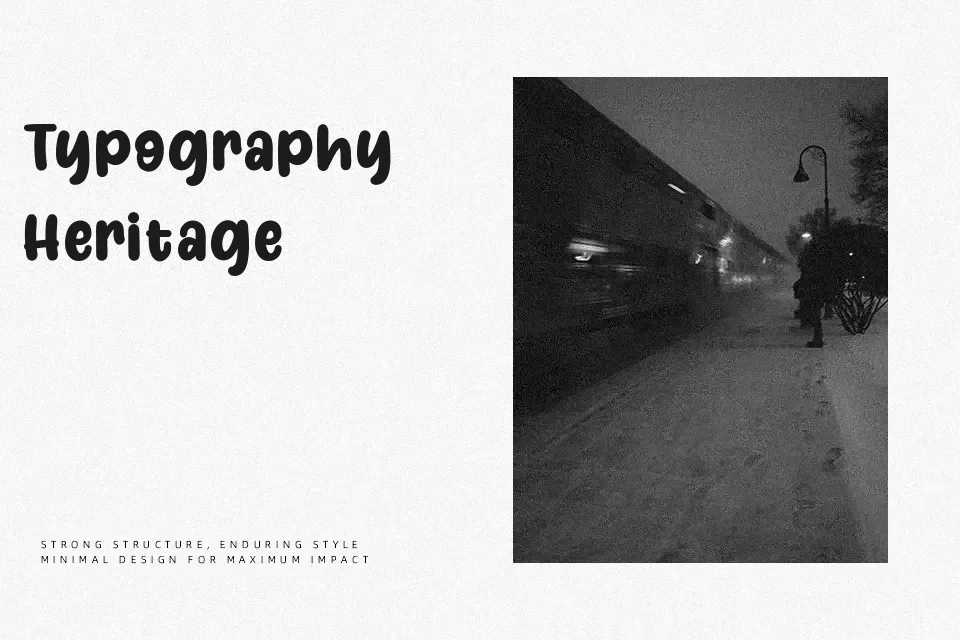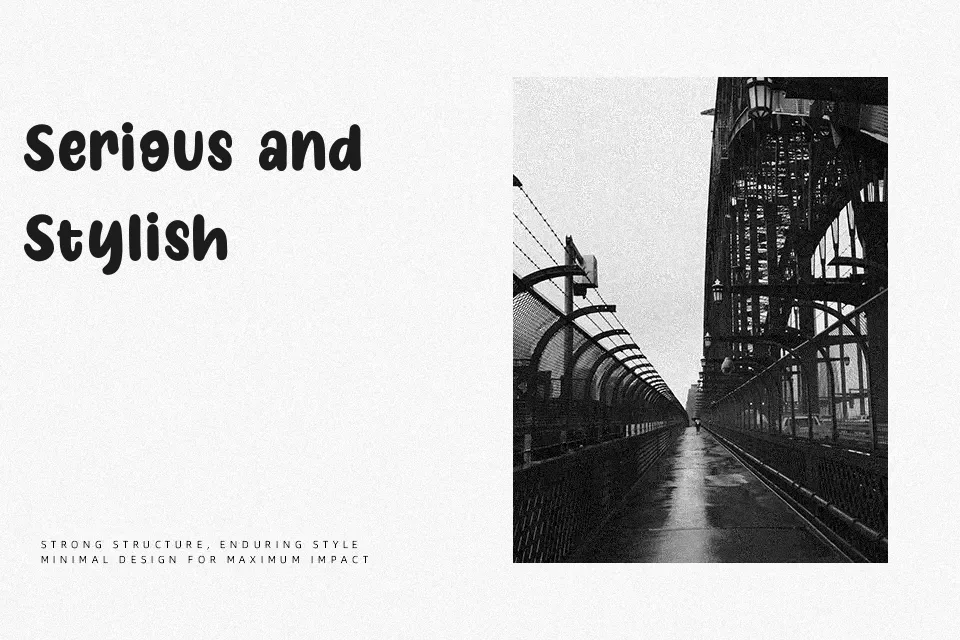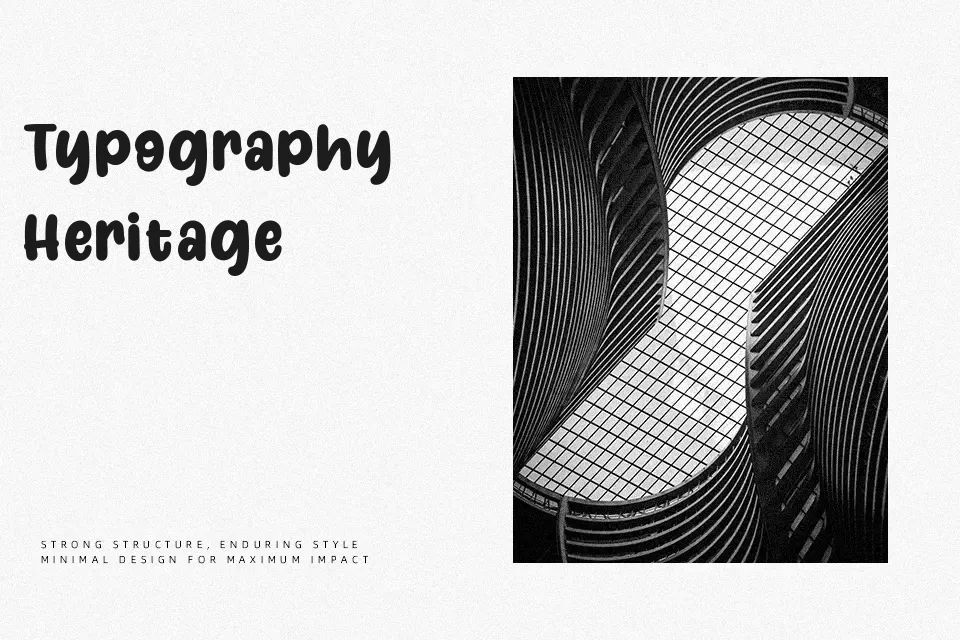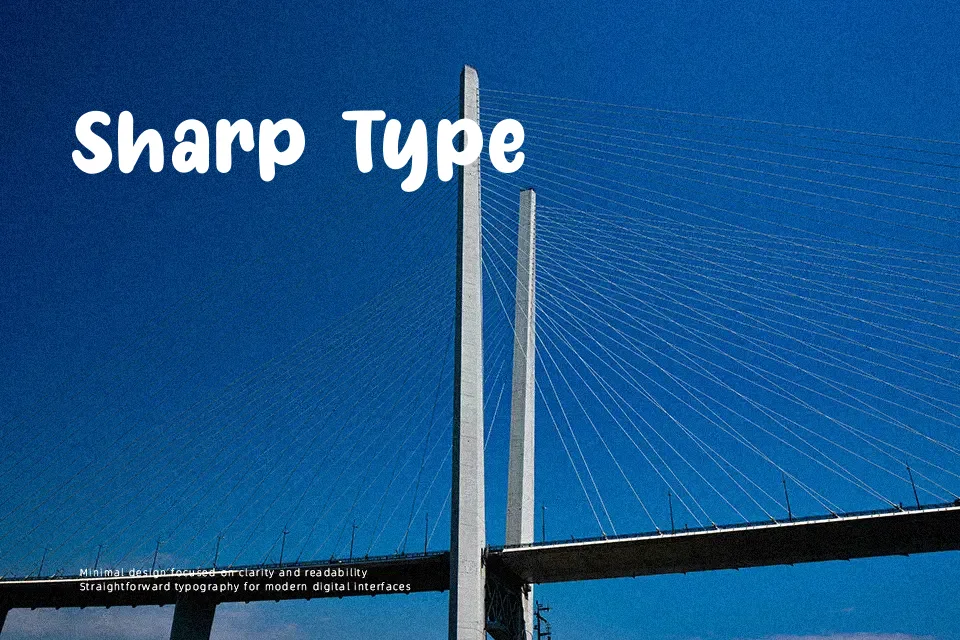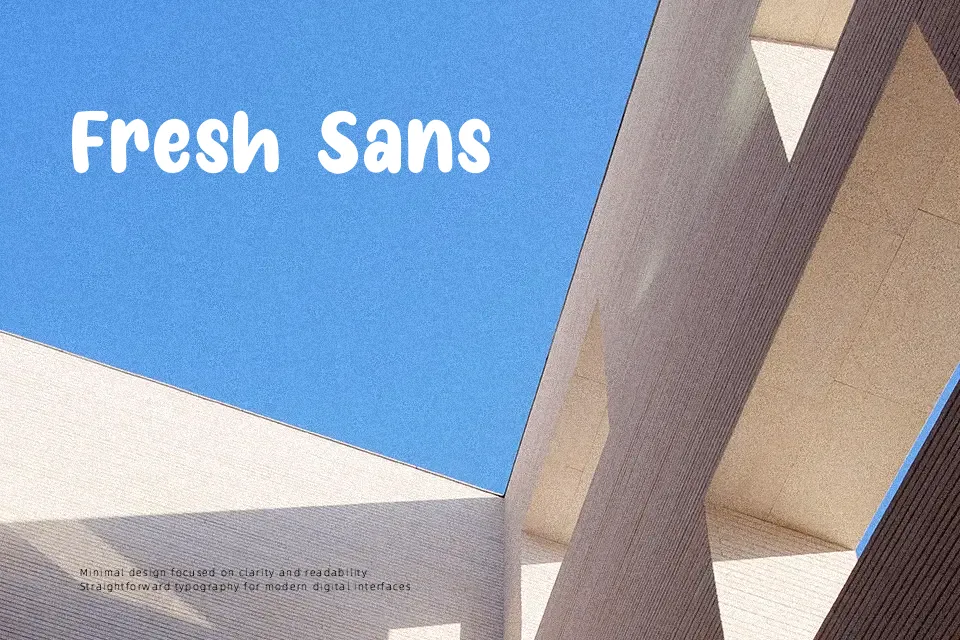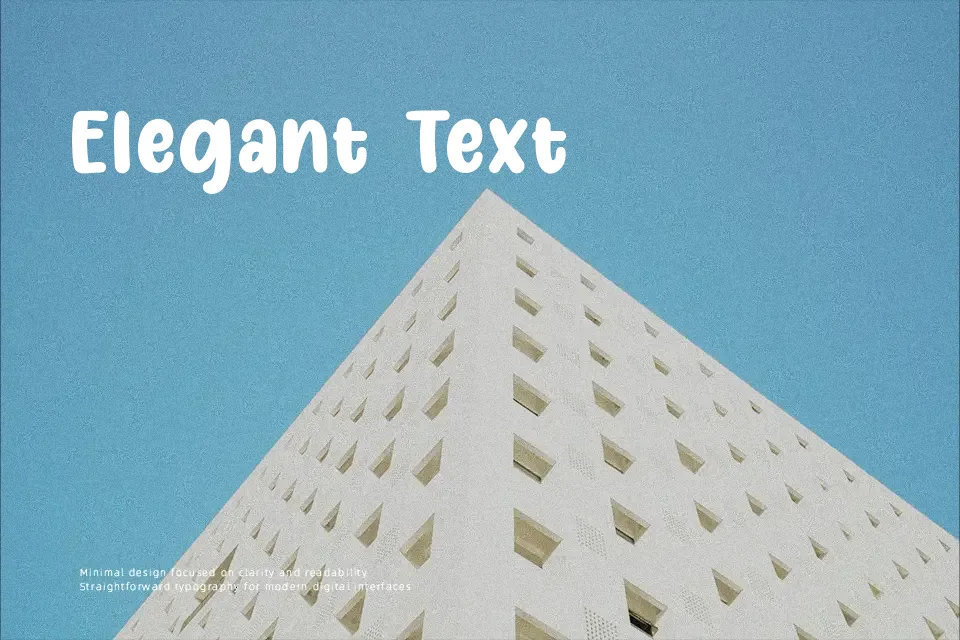
Springtime Romance Font
Designed by Eifetstype
Springtime Romance Font showcases soft, rounded forms paired with consistent monoline weight throughout its character set. Generous interior counters and relaxed spacing maintain distinct glyph shapes across uppercase and lowercase pairings. Curved terminals lend an informal, comic-inspired structure that excels across medium and large display formats. The letterforms create engaging focal points in storybook titles, birthday stationery, merchandise graphics, and playful social graphics. However, the uniform thickness and whimsical geometry reduce comfort during extended reading in small continuous body paragraphs. For bold headline treatments requiring an inviting aesthetic, the typeface delivers clear visual presence and lively energy.
Best For: children storybook covers, casual greeting cards, youth merchandise graphics, playful packaging labels
Not Ideal For: continuous editorial paragraphs, corporate legal documents, compact mobile UI captions, dense data spreadsheets
Perfect for headline, kids, and packaging, with a cute and comic style.